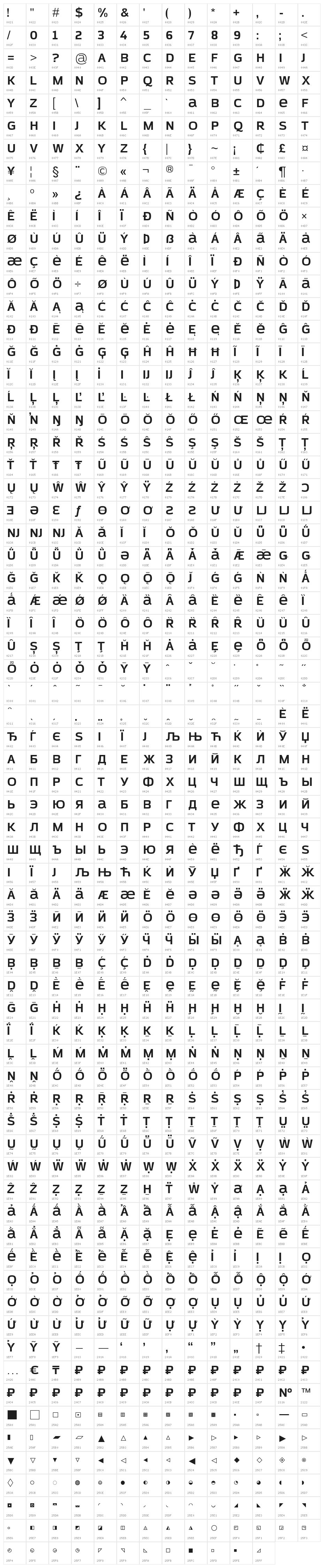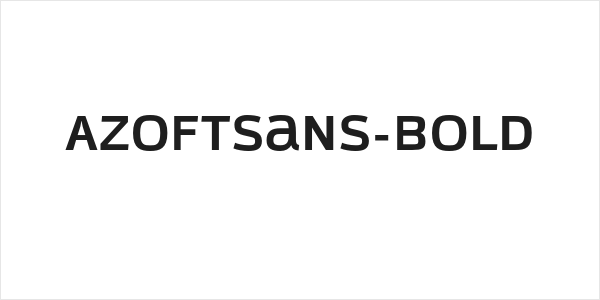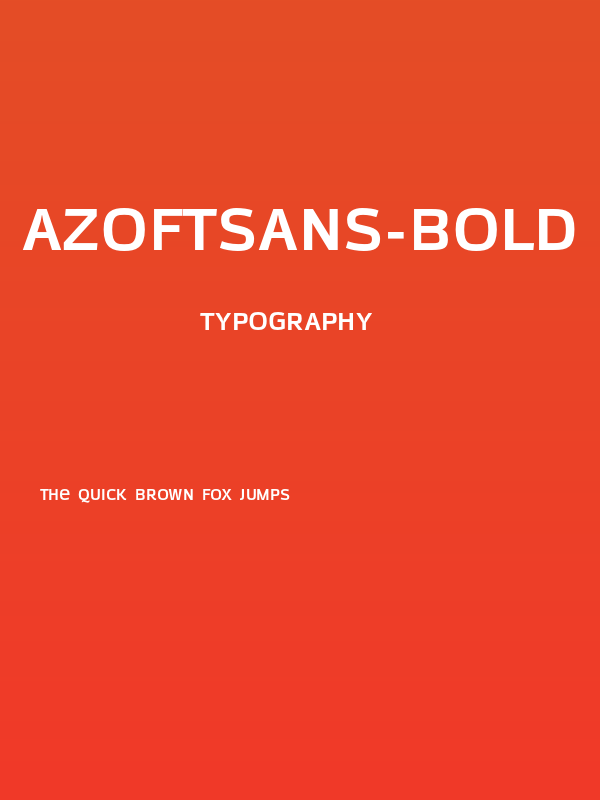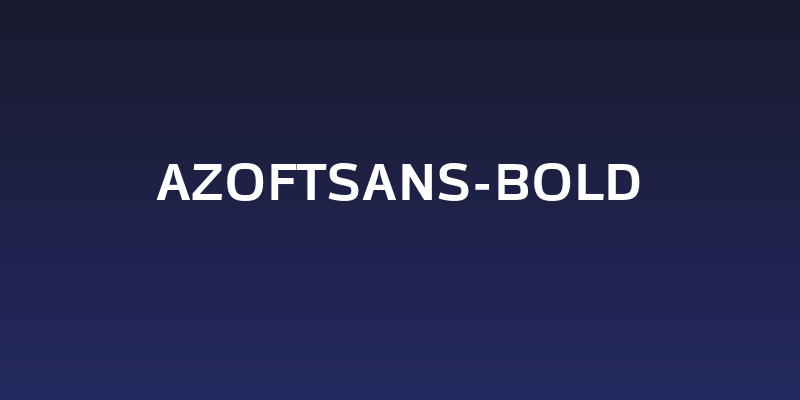
AzoftSans-Bold Font
AzoftSans-Bold Description
This font features a bold and modern sans-serif design, characterized by clean lines and a strong presence. The uppercase and lowercase letters maintain a consistent weight, providing a uniform appearance across all characters. The numerals are clear and easily distinguishable, while the special characters are well-defined and integrate seamlessly with the rest of the typeface. The overall style is straightforward and professional, making it suitable for a variety of applications where clarity and impact are essential.
| Use Case | Headlines, Logos, Digital interfaces |
| Proposed Projects | Ideal for branding, advertising, headlines, and digital interfaces where a modern and impactful look is desired. |